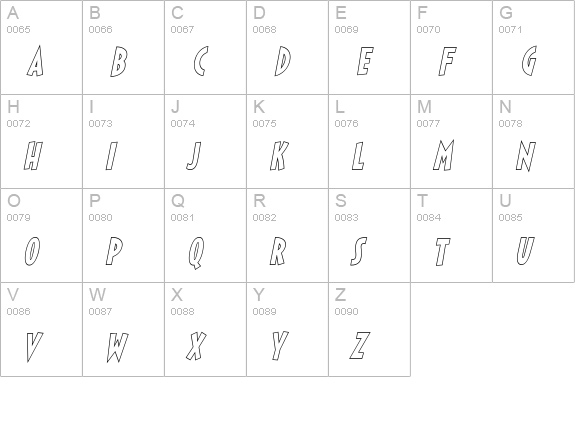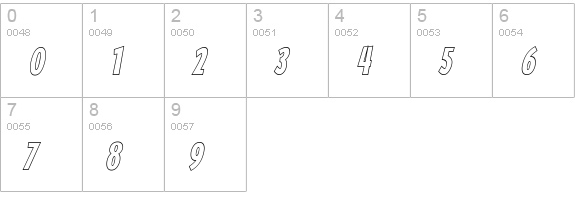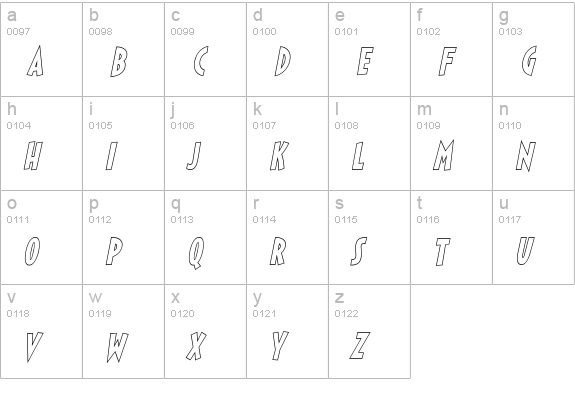
Sticky Moula BTN Outline Oblique Font Details
Sticky Moula BTN Outline Oblique is a distinctive, italic variant in the Sticky typeface family \xE2\x80\x94 well suited to design and typography projects.
Introducing Sticky Moula BTN Outline Oblique font, a captivating and modern typeface that adds a touch of creativity and flair to any design project. This unique font features a stylish outline design with a slight slant, giving it a dynamic and eye-catching appearance. Sticky Moula BTN Outline Oblique font is perfect for a wide range of applications, from branding and advertising to social media graphics and website design. Its bold and distinctive look will make your text stand out and grab attention. Best of all, Sticky Moula BTN Outline Oblique font is available for free download at FontsMarket.com. Don't miss out on the opportunity to enhance your projects with this versatile and stylish font. Download it today and take your designs to the next level!